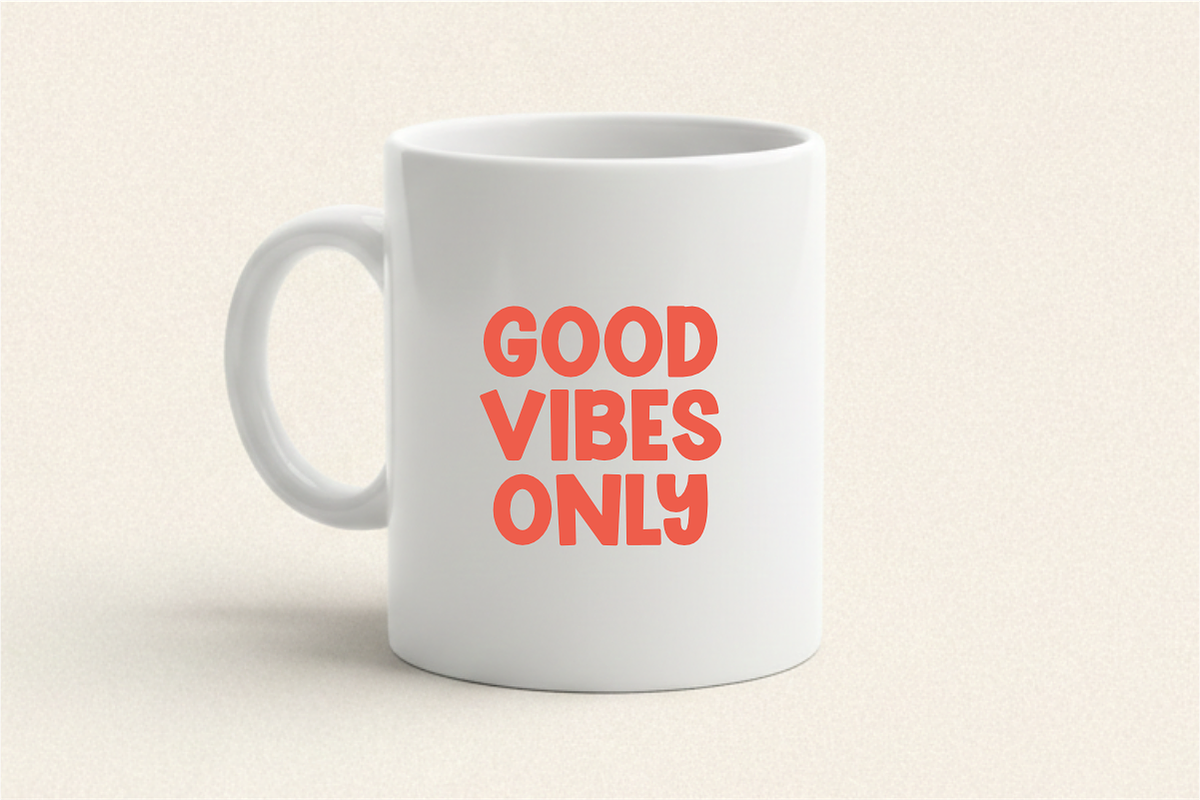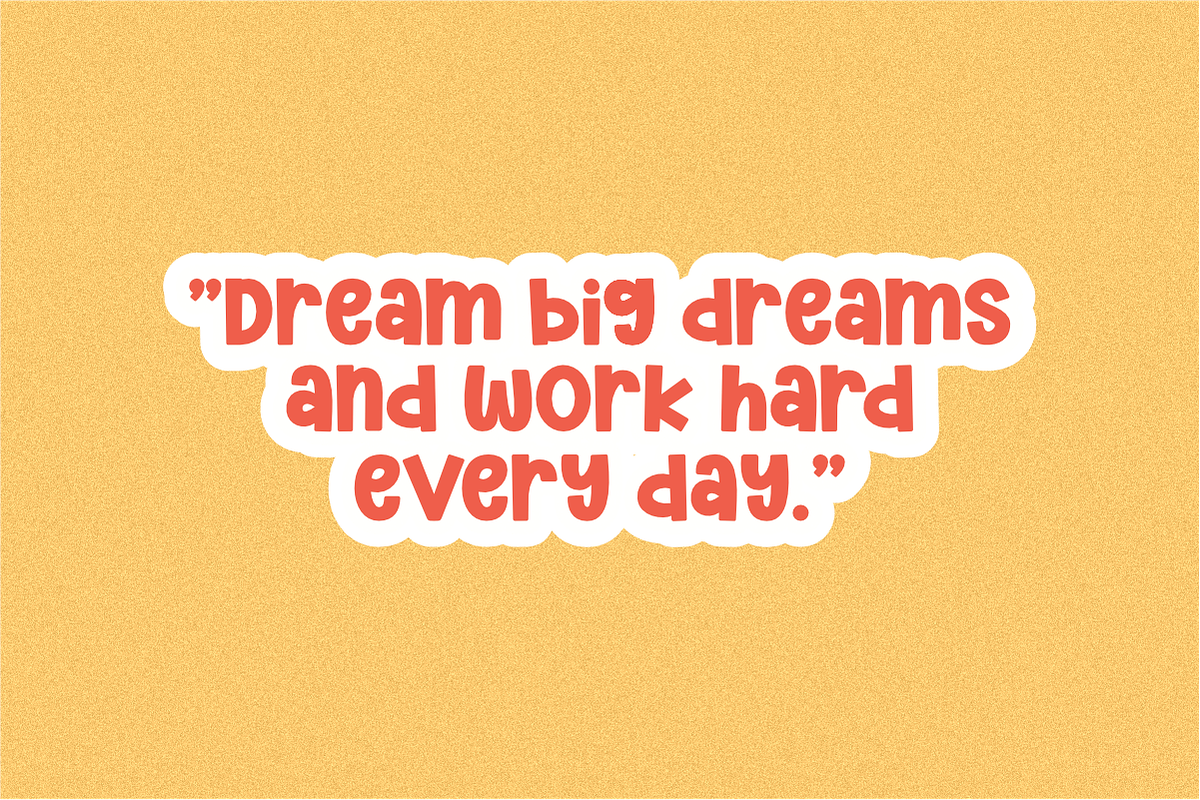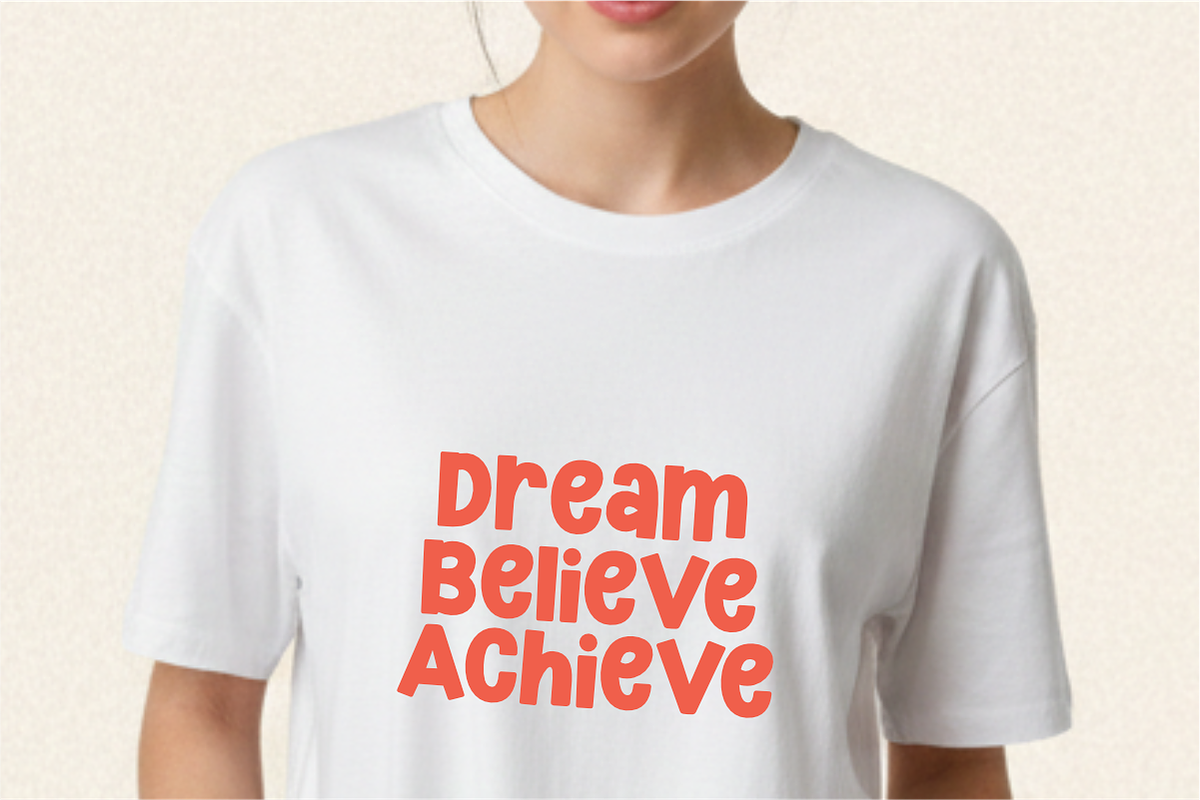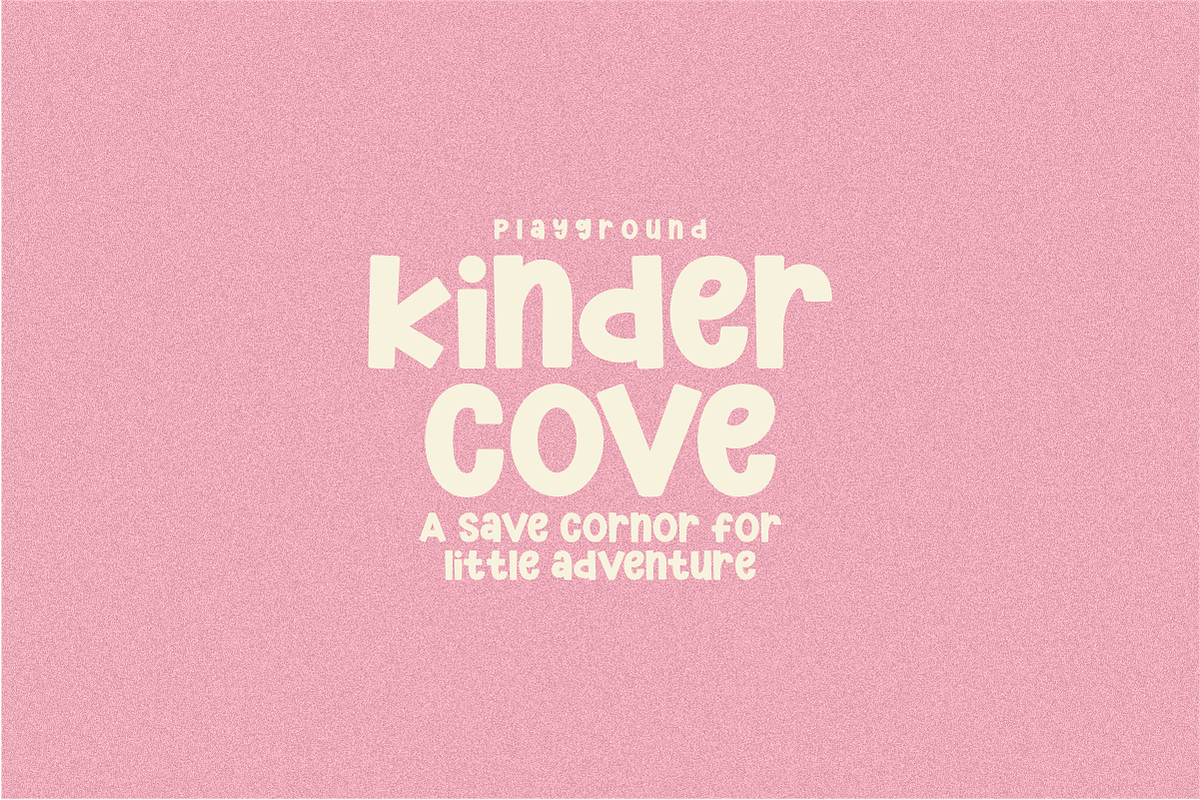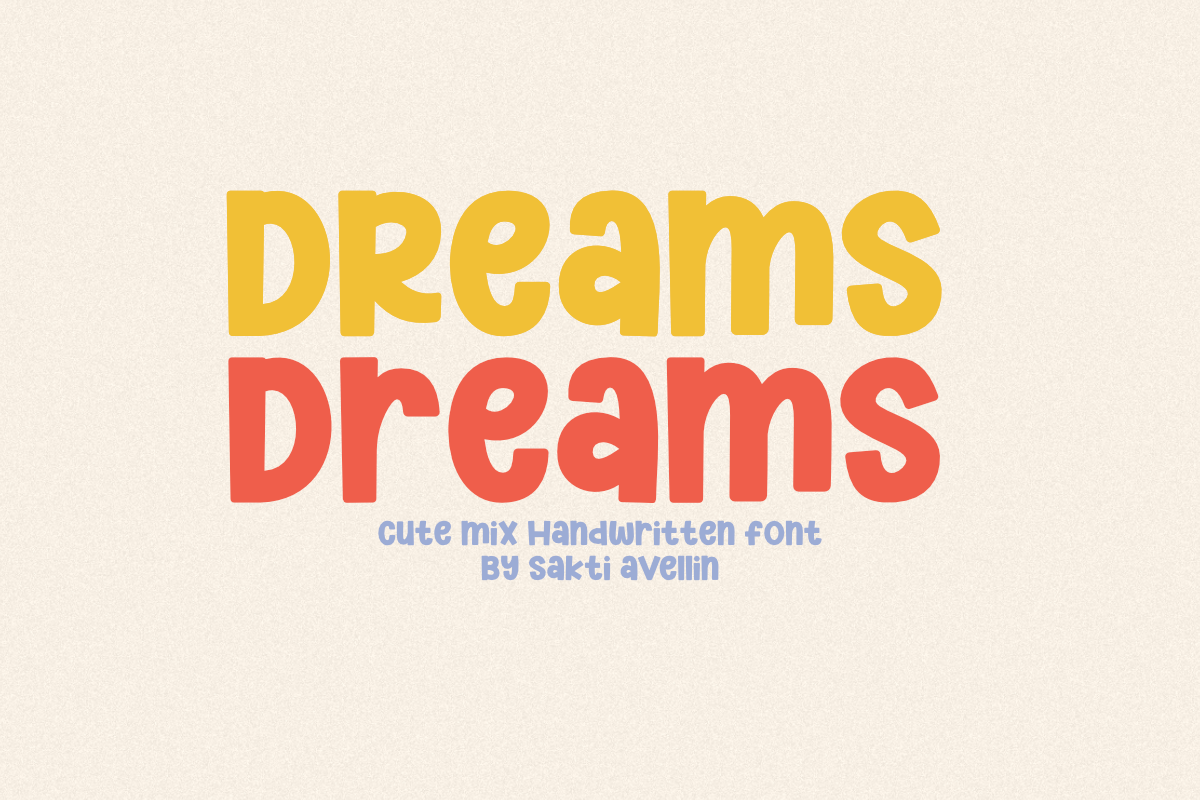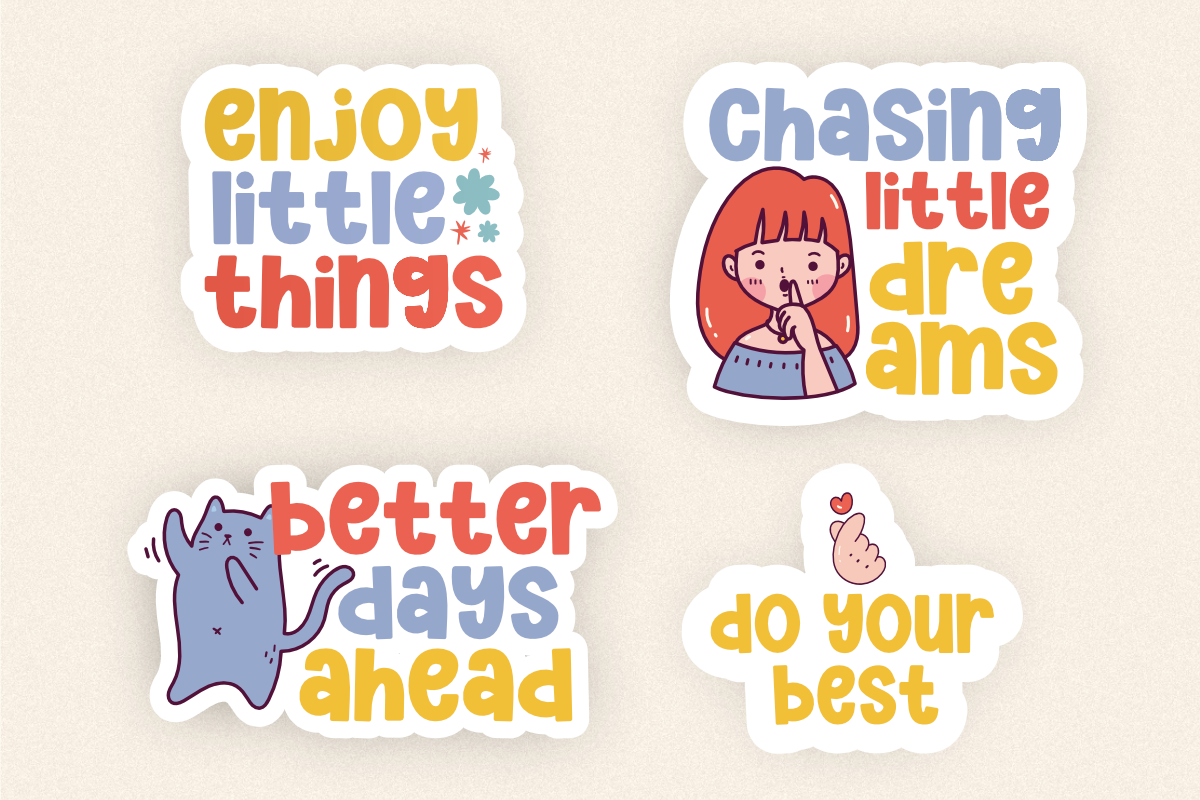
Dreams - Cute Handwritten Font
Dreams is a charming and cute mix handwritten font designed to bring a touch of whimsy and joy to your creative projects. This playful display typeface features bold, rounded letterforms that capture the essence of a hand-drawn aesthetic, making it an ideal choice for kids' branding, nursery decor, playful logos, and cheerful social media graphics. Its organic and friendly silhouette ensures your headlines stand out with a warm, handcrafted feel. Whether you are designing for stickers, summer apparel, or sweet greeting cards, Dreams adds a lovely and creative energy to every piece of work.